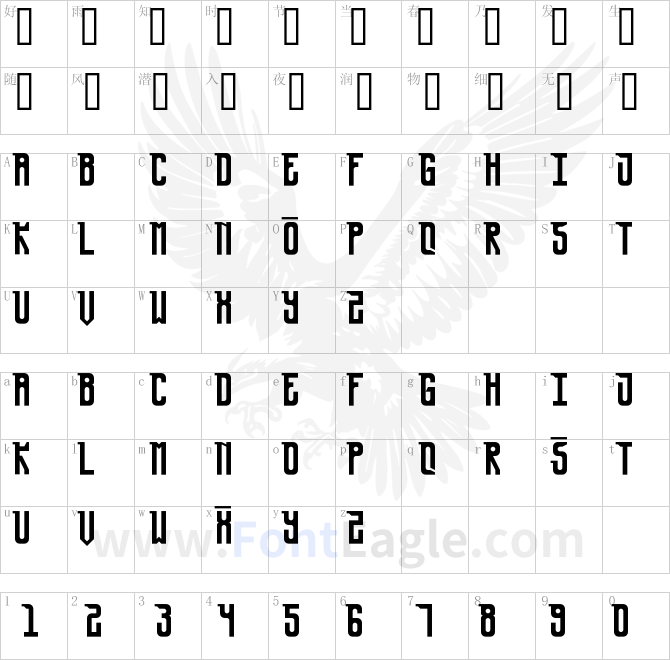
- Font name:Ursa Minor
- Font Subfamily ID:1.000;pyrs;UrsaMinor-Regular
- Font Full Name:UrsaMinor-Regular
- Font Version:Version 1.000;PS 001.001;hotconv 1.0.56
- Postscript:UrsaMinor-Regular